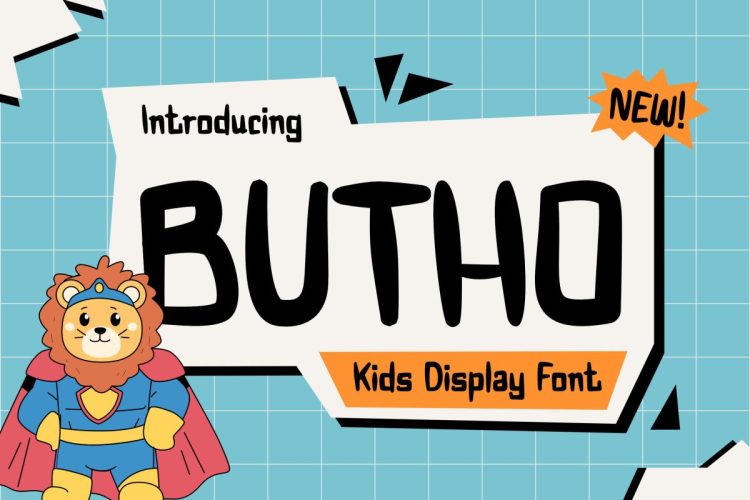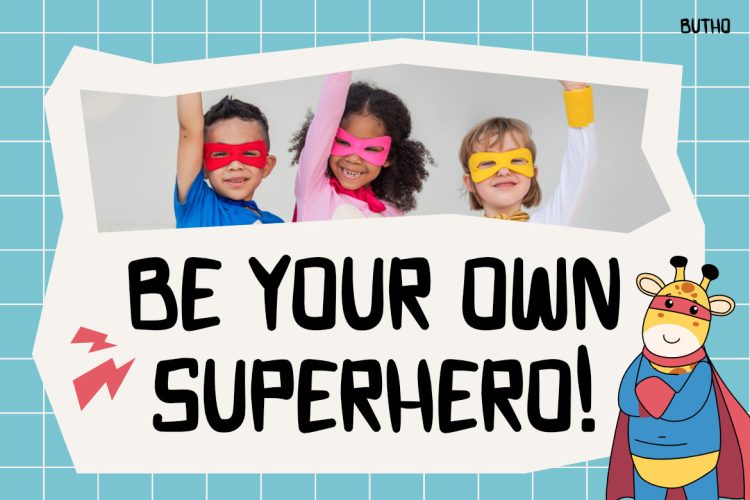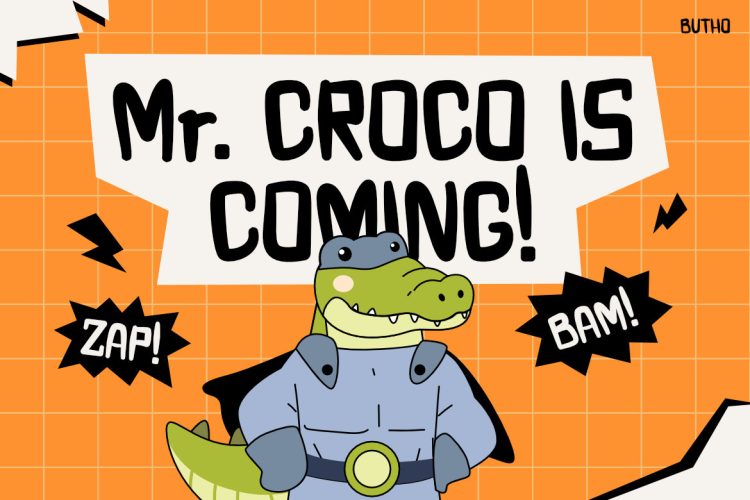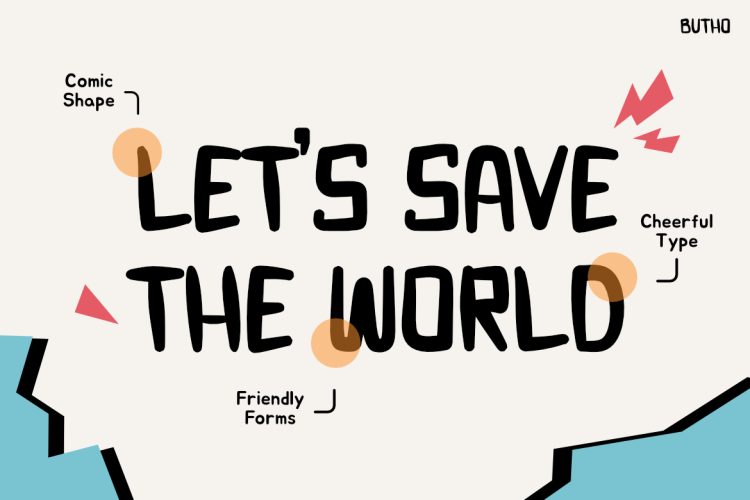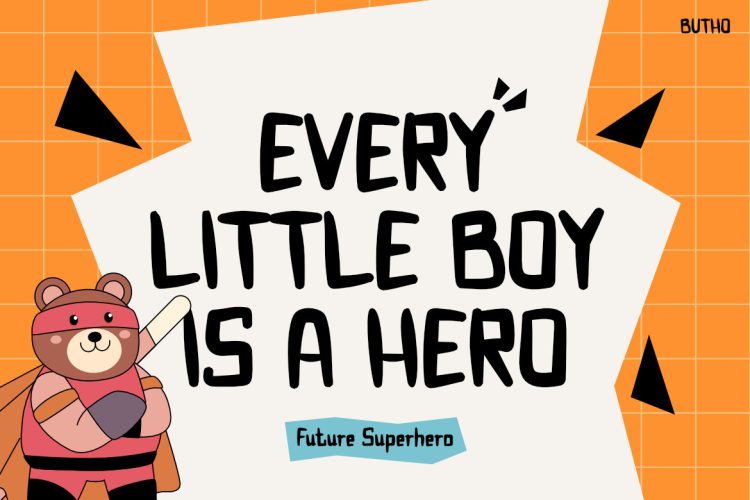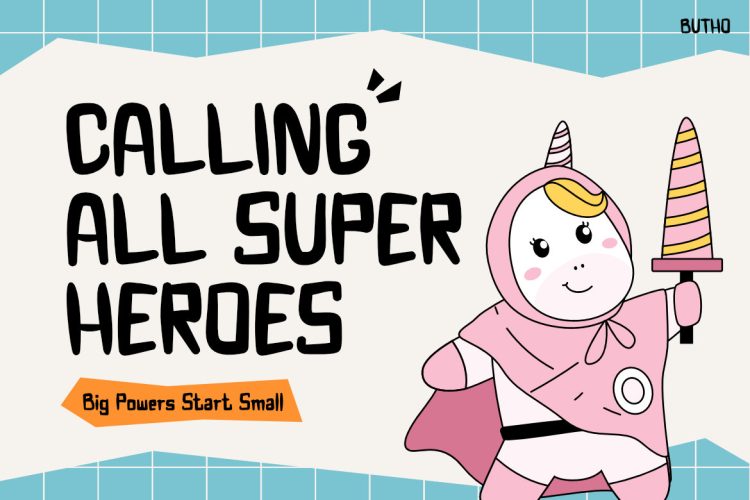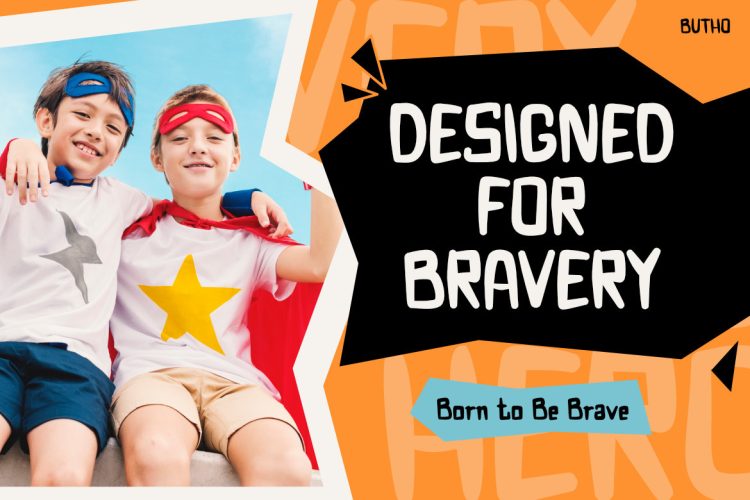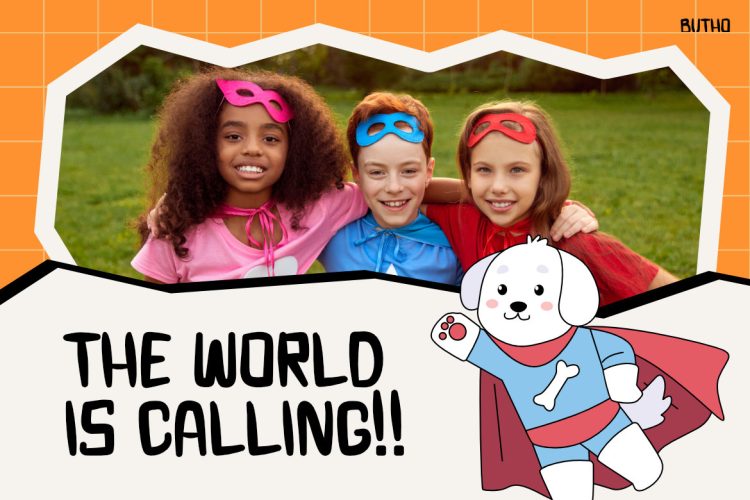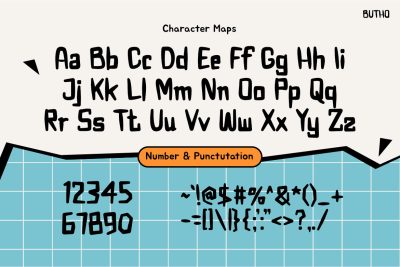
Kids Font BUTHO โ Bold Superhero Energy for Fun Kids Designs
Kids Font BUTHO is a bold and playful kids display font inspired by superhero comics and joyful imagination. From the first look, this font delivers strong character through chunky letterforms and rounded edges. Moreover, its hand-drawn style feels friendly, confident, and energetic. At the same time, the overall look stays fun while remaining easy to read. Each letter shows personality and movement. As a result, the text feels lively and expressive. The balance between boldness and playfulness makes the font stand out. Therefore, BUTHO works well for both creative visuals and practical layouts. In the end, simple words turn into heroic messages filled with fun and adventure.
Kids Font BUTHO is created to support creative storytelling and strong visual impact. First of all, the font fits headlines, posters, and title designs perfectly. Because of its bold shapes, text stays clear at any size. Meanwhile, playful details add charm and warmth. In addition, designers can use it for childrenโs books and learning materials. It also suits comic themes and fun branding projects. Furthermore, BUTHO performs well in both digital and print media. Included characters cover uppercase, lowercase, numbers, and punctuation. Therefore, this flexibility helps designers work faster and smarter. Overall, messages appear stronger, clearer, and more engaging.
Kids Font BUTHO suits graphic designers focused on kids content. In particular, illustrators and educators can use it with confidence. The font works great for school posters and worksheets. Likewise, content creators will enjoy its expressive look. Toy brands can build playful identities with it. Additionally, kids fashion labels benefit from its bold style. Parents can also apply it to birthday invitations and DIY projects. Because of its superhero vibe, children feel excited instantly. However, parents still appreciate its clean readability. Ultimately, BUTHO helps brands connect emotionally with young audiences.
Kids Font BUTHO is more than a typeface. Instead, it is a tool for joyful creativity. If you want designs that feel brave, fun, and eye-catching, this font is a smart choice. Therefore, add Kids Font BUTHO to your collection today and start creating designs kids will truly love.